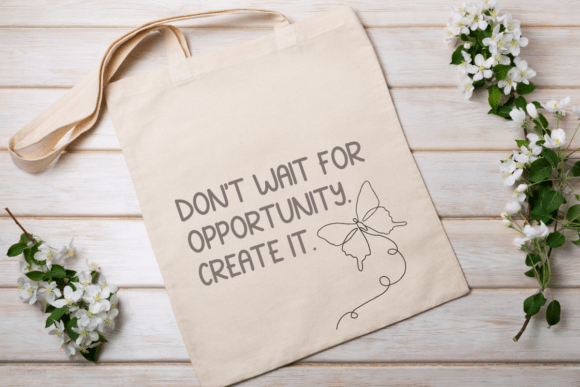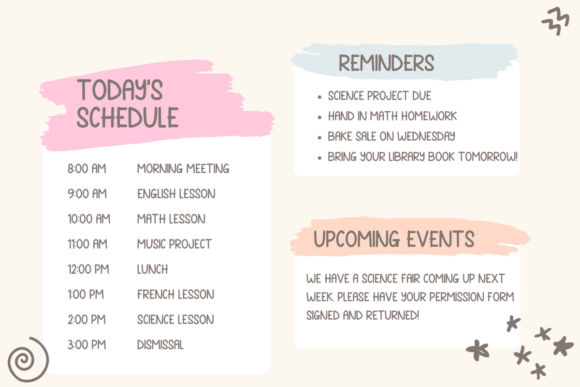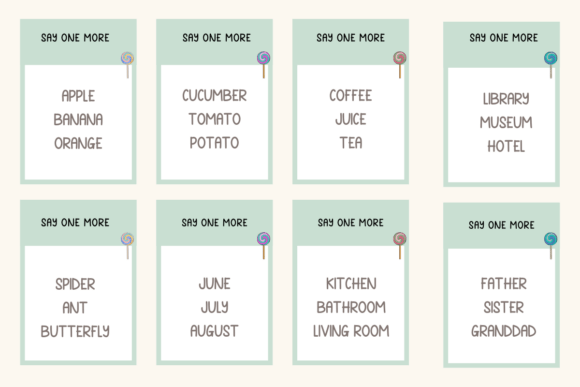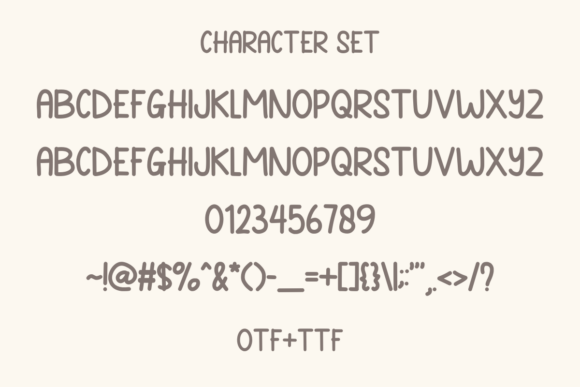
Introduction to Digital Pillow Font
Do you remember the thrill of creating your first handmade card or gift for a loved one? The excitement of bringing your imagination to life, combining colors, textures, and designs to make something truly special? As a crafter, designer, or maker, you know that the right tools and resources can elevate your creative project from ordinary to extraordinary.
Enter the Digital Pillow Font, a delightful handwritten font that’s about to become your new best friend. With its high-quality design and friendly style, this font is perfect for a wide range of creative projects, from planners and stickers to greeting cards and DIY crafts. Whether you’re a seasoned designer or a hobbyist, the Digital Pillow Font is a valuable resource that will help you take your designs to the next level.
Key Features of Digital Pillow Font
- High-quality design resource with a unique, creative style
- Perfect for use in creative projects, such as graphic design, digital art, and typography
Honest Review: Digital Pillow Font
I recently stumbled upon the Digital Pillow Font, a free download that’s quickly become a valuable addition to my design arsenal. This high-quality font is perfect for any creative project that requires a unique touch.
What works well: ✨ The Digital Pillow Font boasts a clean and modern design, making it an excellent choice for digital projects. Its transparent background allows for seamless integration with any background image or color, giving you complete control over your design. The font is also highly customizable, with a range of styles and sizes to choose from.
Here are some of my favorite features:
- High-resolution design, perfect for large-scale projects
- Customizable styles and sizes
Limitations: ⚠️ While the Digital Pillow Font is an excellent addition to any design library, it may not be suitable for projects that require a more traditional or serif font style. Additionally, some users may find the font’s modern design to be too trendy or overused.
Overall, I’m thoroughly impressed with the Digital Pillow Font. Its high-quality design, customizable features, and transparent background make it an excellent choice for any creative project. Whether you’re a seasoned designer or just starting out, this font is definitely worth checking out.
The Digital Pillow Font is perfect for creating unique and eye-catching designs for various creative projects, such as social media graphics, posters, and flyers. It’s also great for branding and logo designs that require a high-quality and custom font.
To get the most out of the Digital Pillow Font, experiment with different font sizes, colors, and layouts. You can also combine it with other design elements to create a visually appealing and cohesive design.